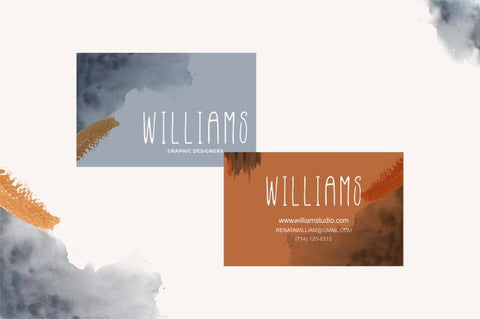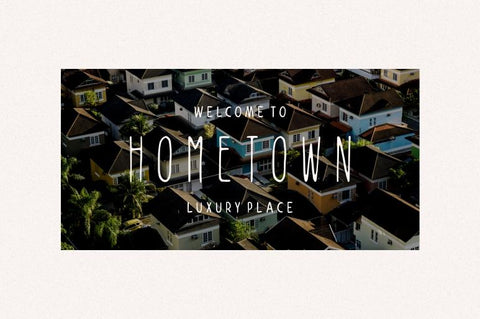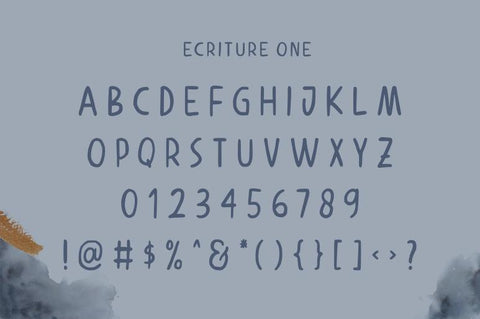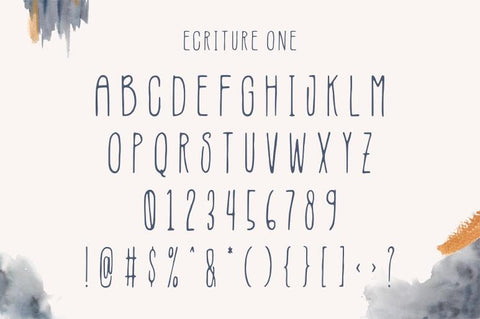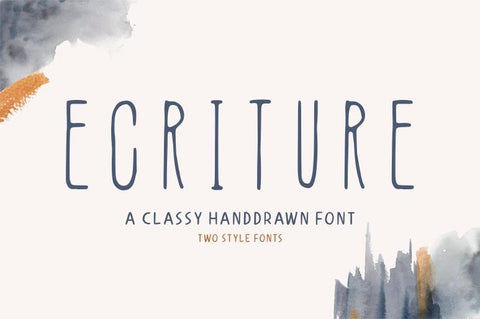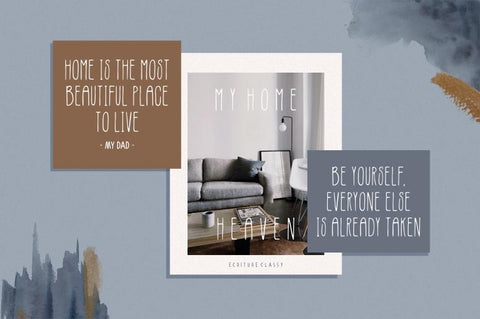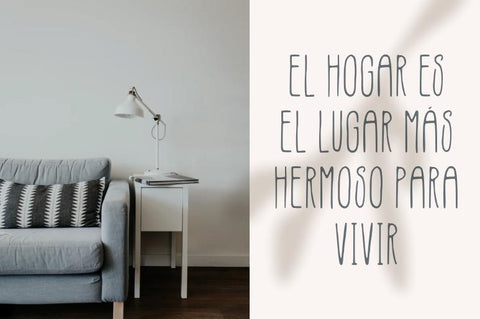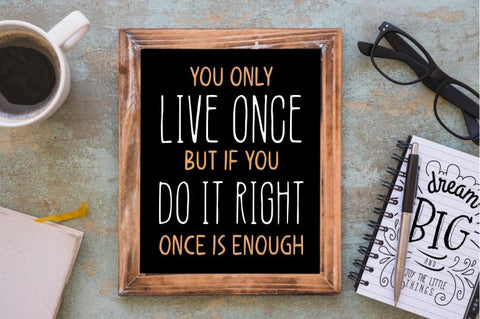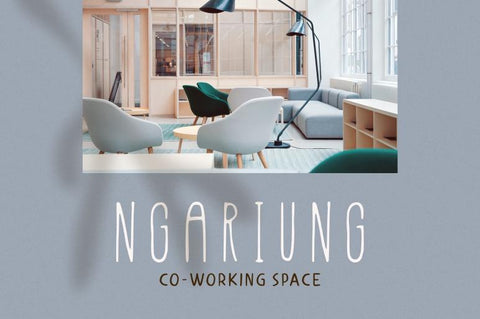
Ecriture – Handdrawn Font
Introducing Ecriture || Handdrawn Font
Ecriture is born from original and hand-drawn style font. This font gives a feel of a classic, old, handmade looked like. Already PUA Encoded and I think this font is perfect for people looking for an aesthetic or hand-drawn logo. Suitable for any graphic designs such as branding materials, t-shirt, print, business cards, logo, poster, t-shirt, photography, quotes .etc.
- Multilingual Support with Accent